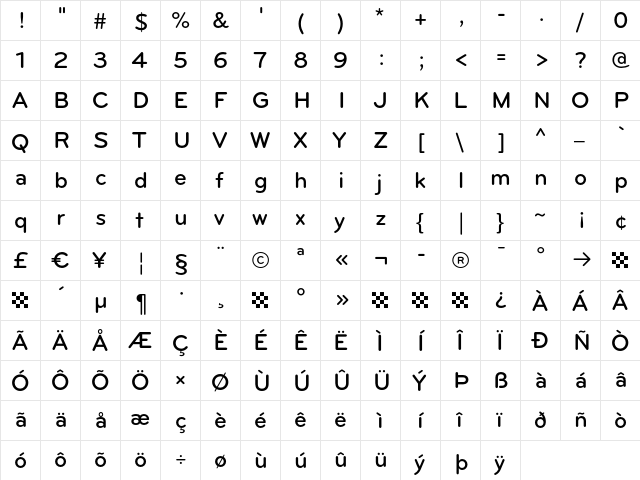
Bryant-Medium Regular Font Preview
Bryant-Medium Regular
Bryant-Medium Regular Font Details
Design Context for Bryant-Medium Typeface
Bryant-Medium takes a measured approach to typography — its balanced proportions and neutral character make it a reliable workhorse for both digital and print work.